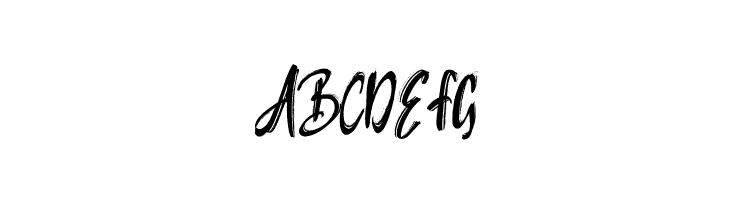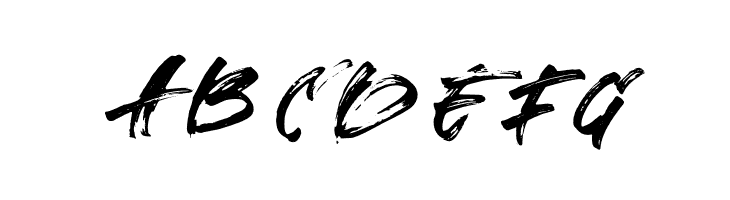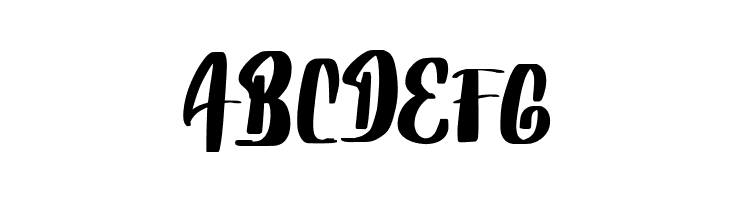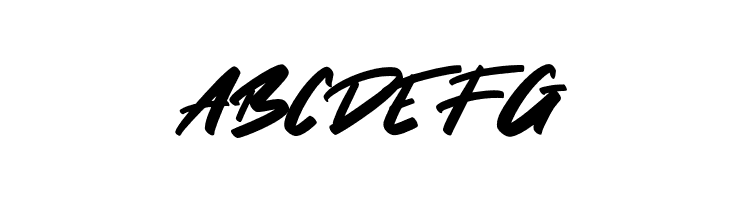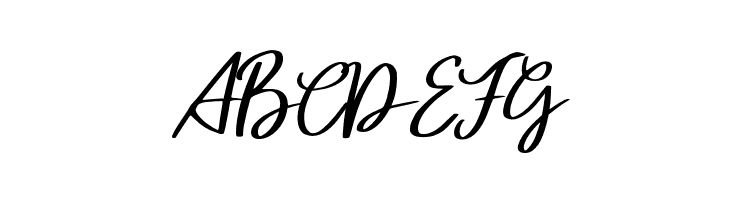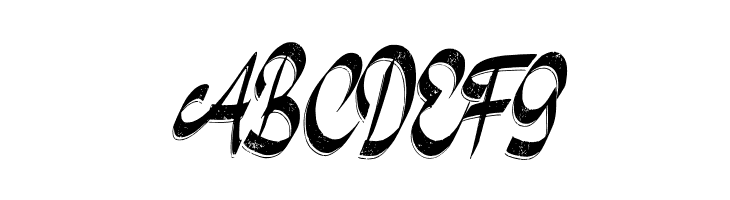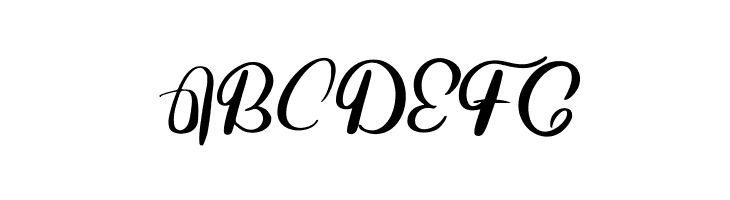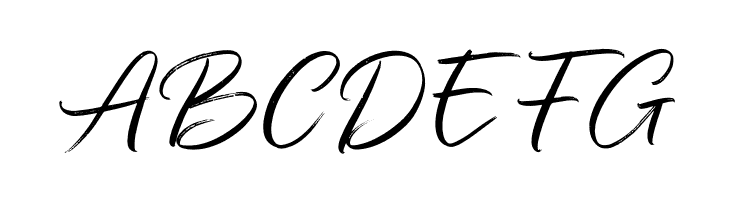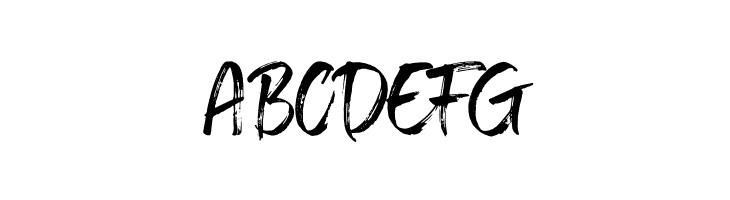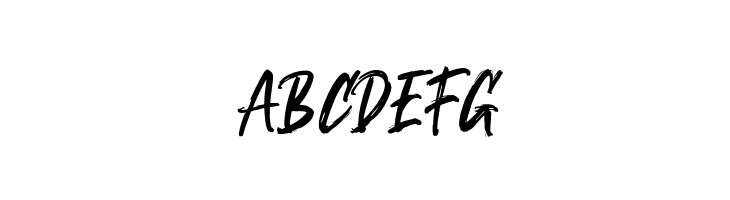
A whimsical, decorative font with curly, artistic flourishes.
A playful, whimsical font with tall, narrow letterforms and exaggerated serifs.
A playful and whimsical font with artistic curves and straight lines.
A playful, handwritten font with smooth curves and a casual style.
A playful, whimsical font with bold, curvy lines and exaggerated serifs.
A bold, italicized font with a playful and dynamic style.
A playful, decorative font with bold, rounded characters and star-like accents.
A playful, bold handwritten font with smooth, rounded edges.
A playful, rounded handwritten font with a friendly vibe.
A playful, handwritten-style font with rounded edges and a casual feel.